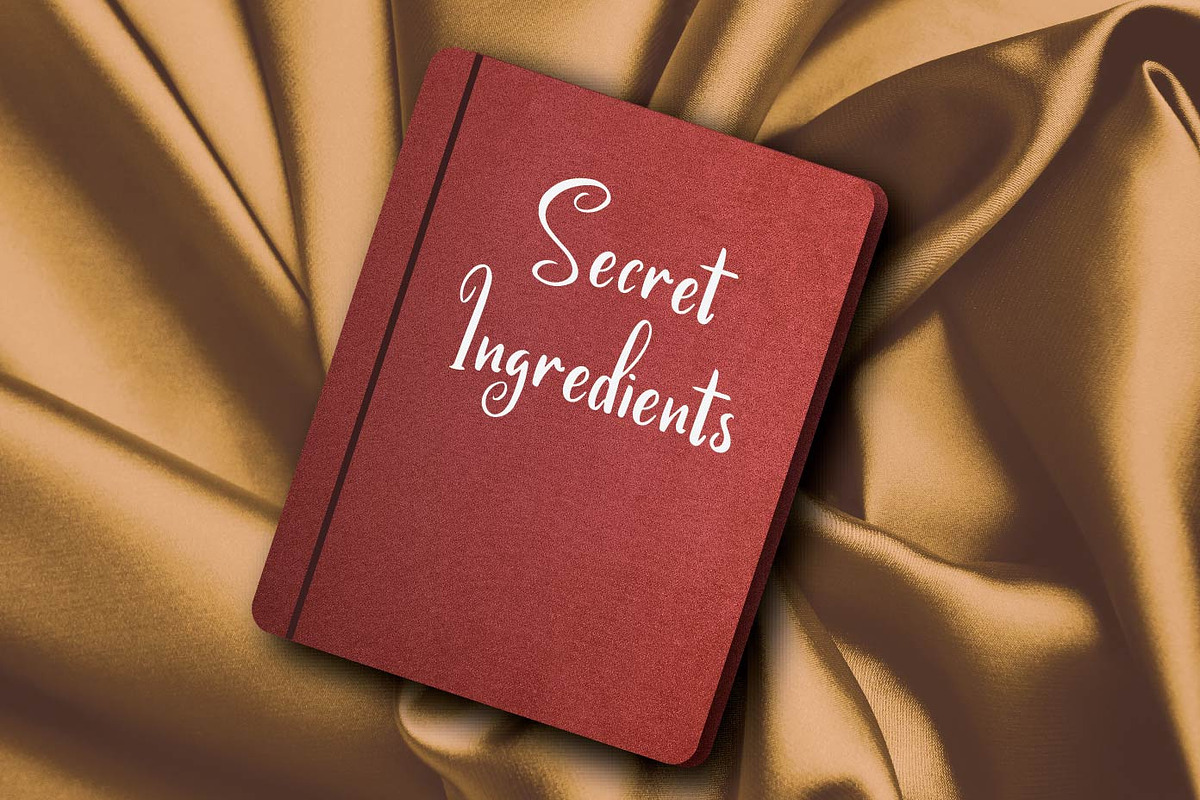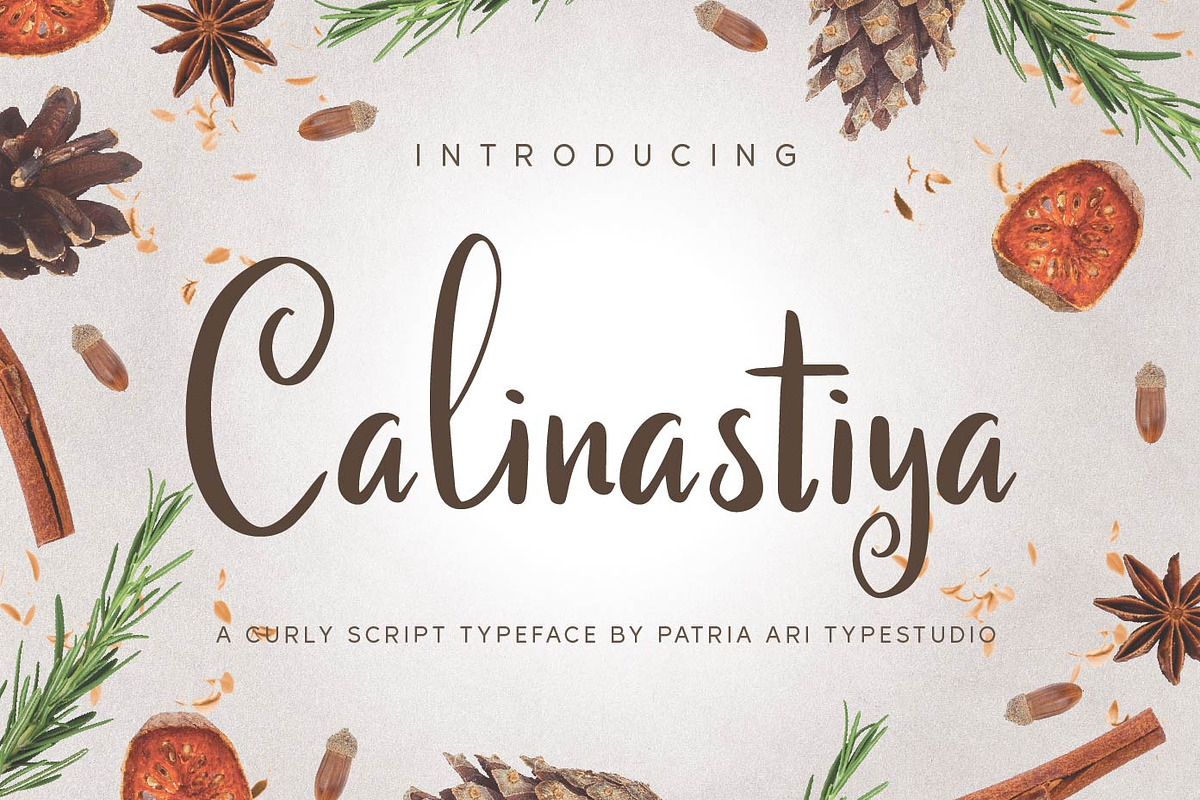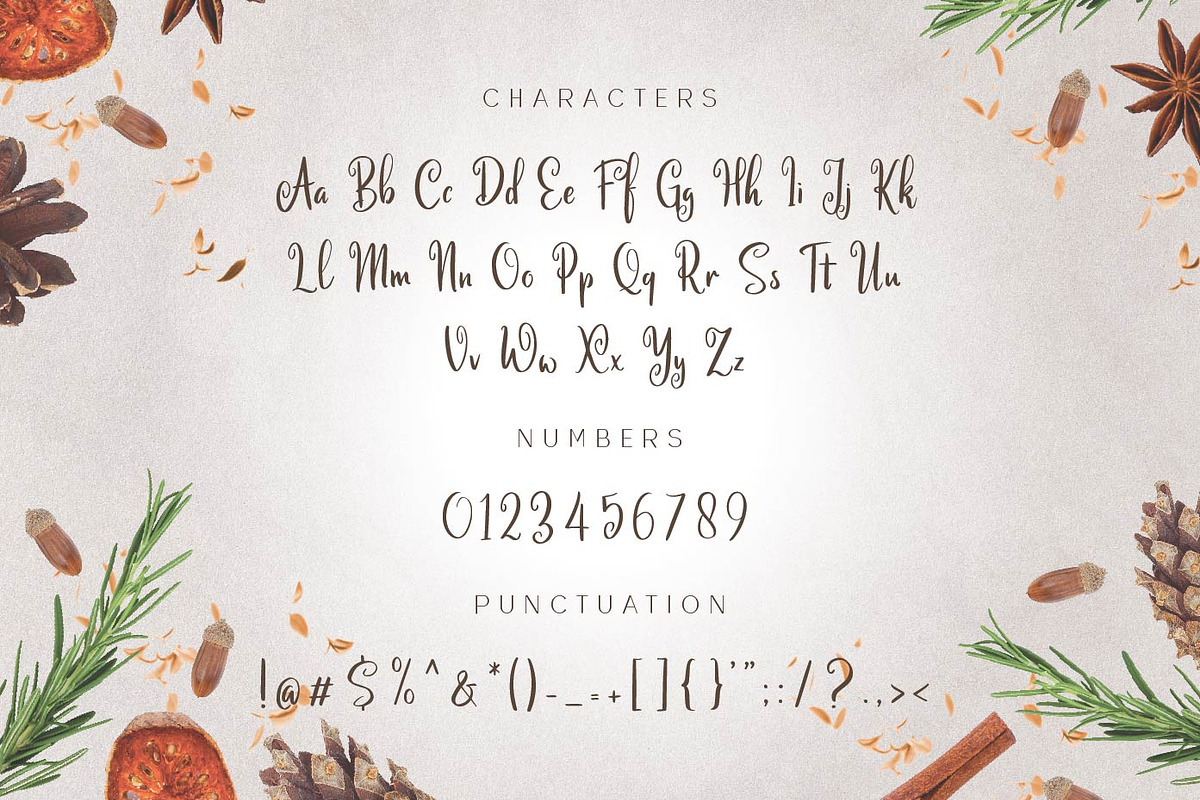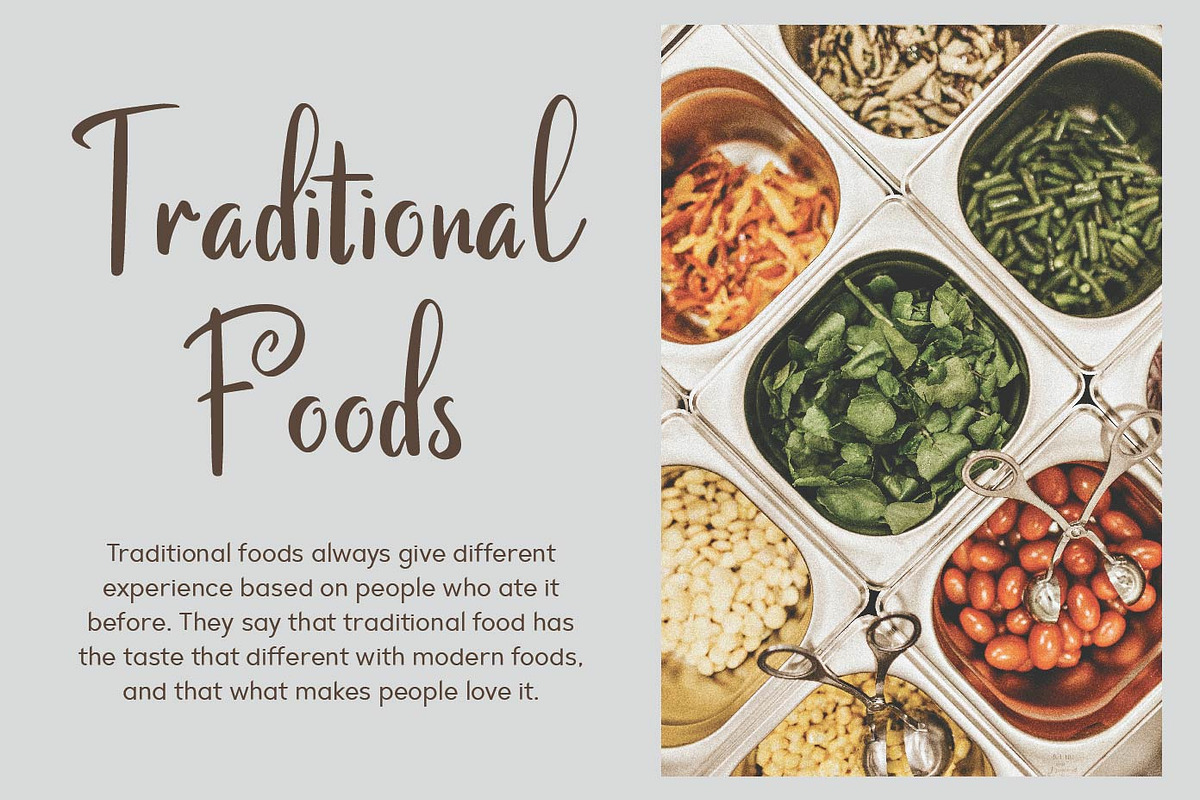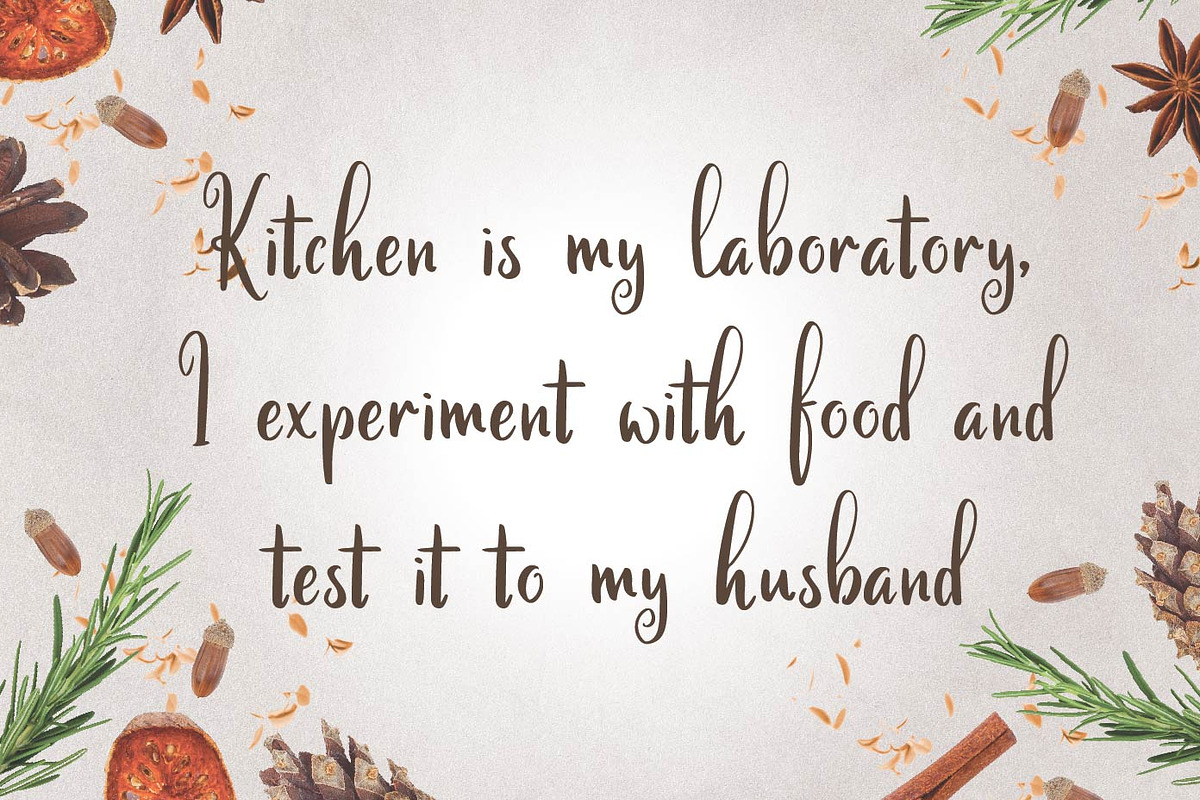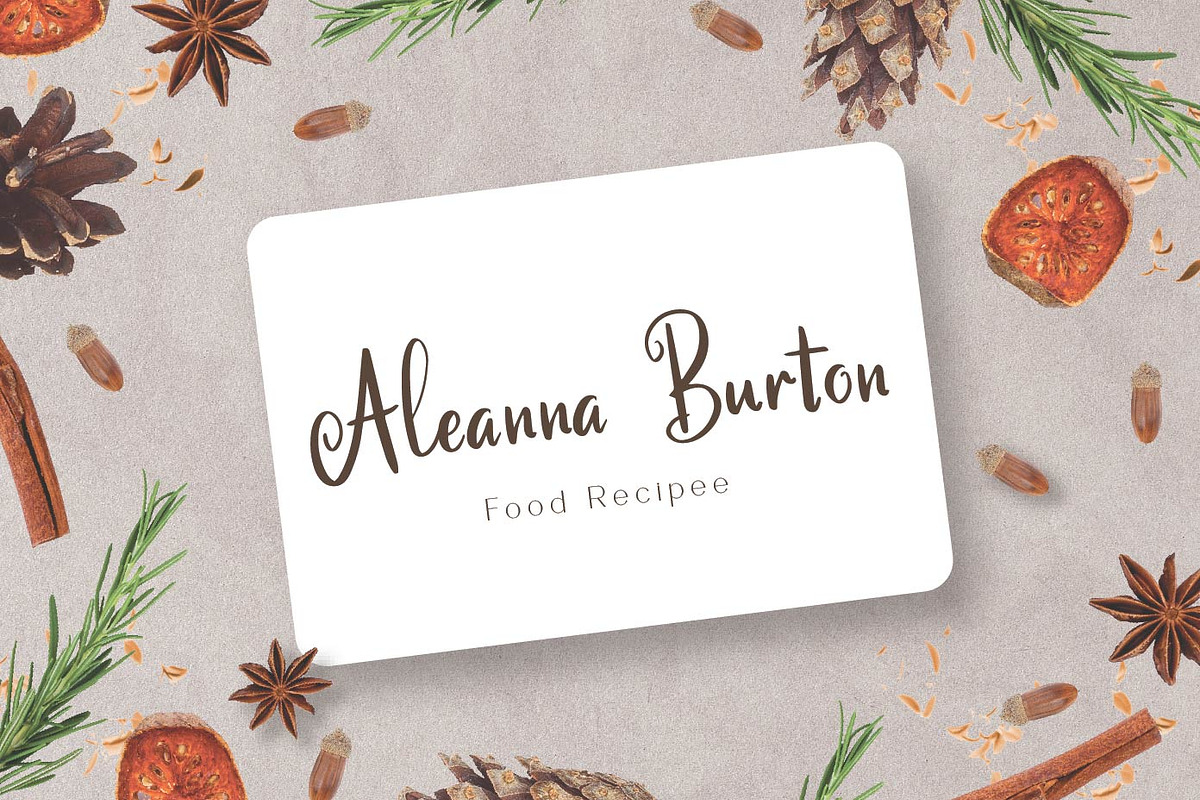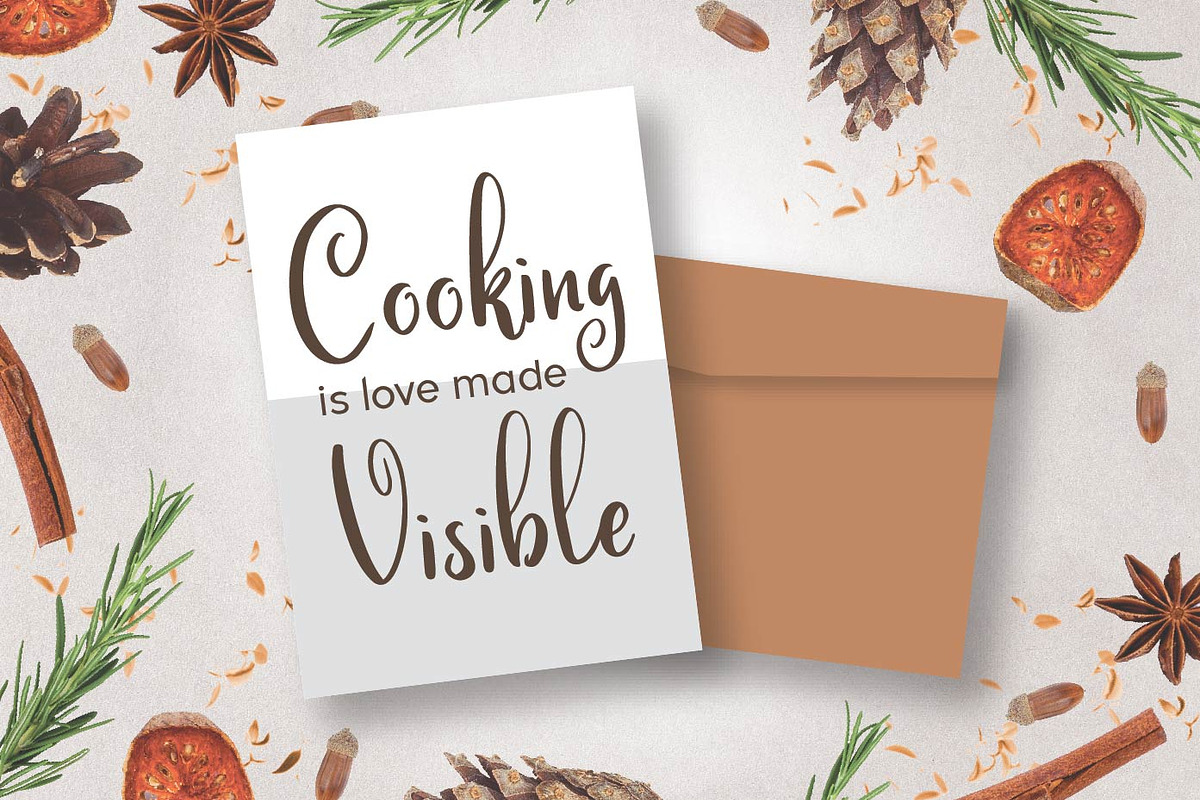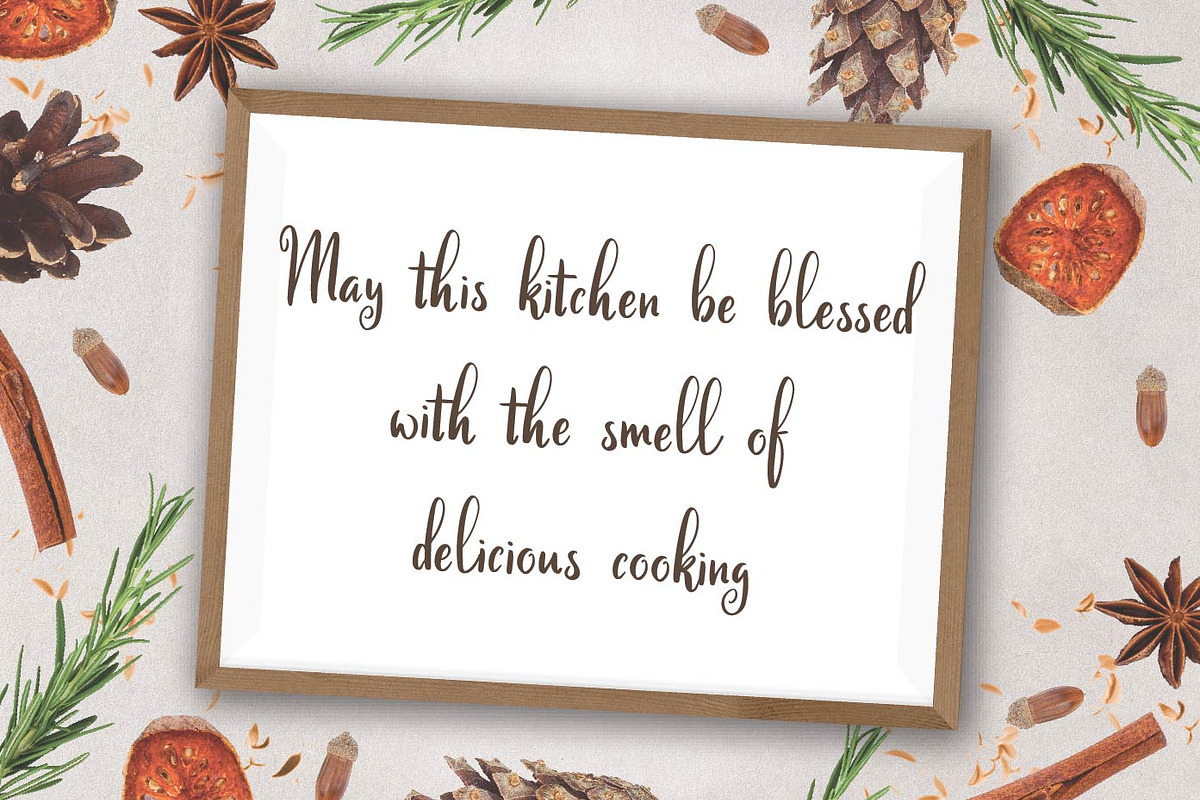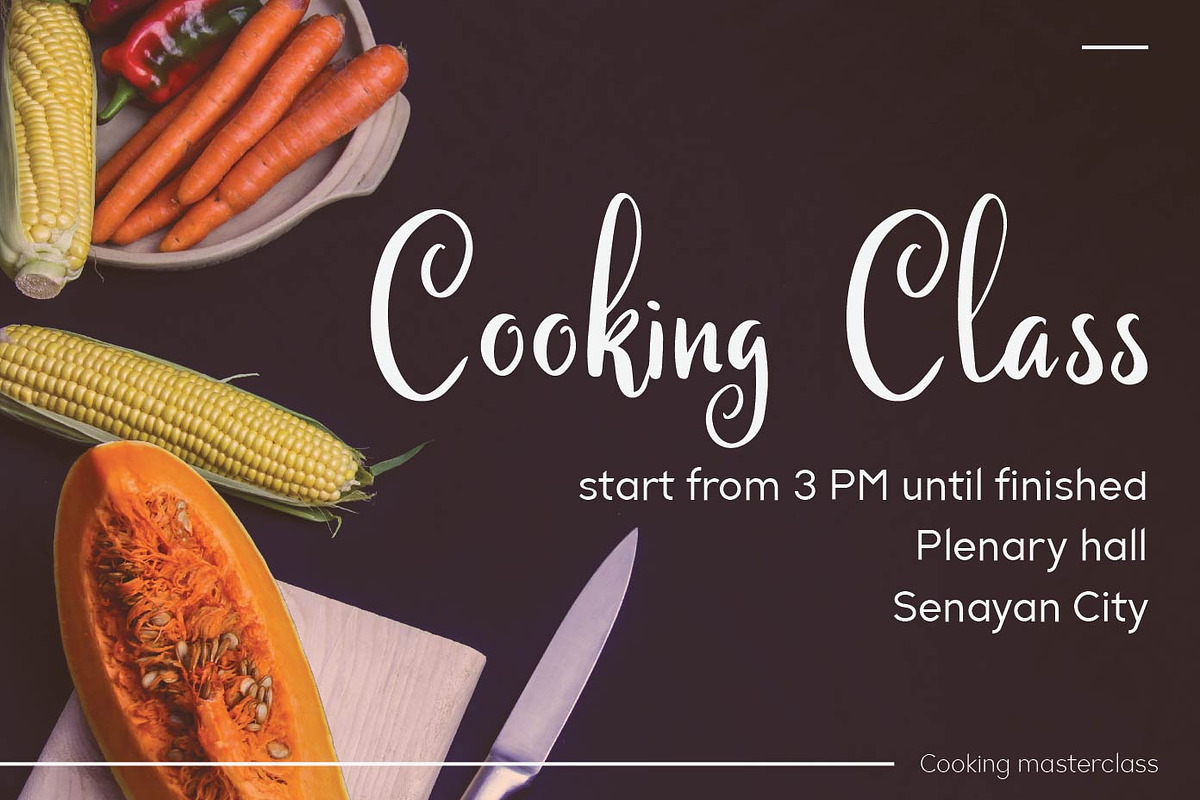
Calinastiya - Fun Handwritten Fonts
Calinastiya is a curly playful display typeface with some beautiful cursive glyphs.
Calinastiya is perfect for branding projects, logo, book cover, social media posts, advertisements, product packaging, product designs, label, and any projects that you work on.